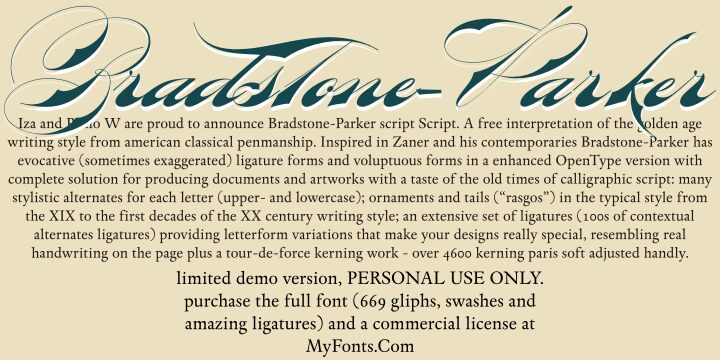
Bradstone-Parker Script by Iza W and Paulo W of Intellecta Design is a free calligraphic script with grand, theatrical movement. Fine hairlines loop far beyond the letters.
Its sweeping flourishes can turn wedding invitations into formal keepsakes, yet the sharp thick-to-thin strokes also suit fashion branding and perfume packaging. For book covers, the lettering brings the drama of engraved penmanship. The recurring curls and long entry strokes can echo ribbons, ornamental borders, or decorative filigree in those settings.
Bradstone-Parker Script is a calligraphic script font with an enhanced OpenType version that includes:
- Stylistic alternates for uppercase and lowercase letters, accessed through the glyph palette.
- Ornaments and tails (“rasgos”), accessed through the glyph palette using the Ornaments feature.
- Hundreds of contextual alternate ligatures that provide letterform variations.
- More than 4,600 manually adjusted kerning pairs.
In applications without OpenType support, it functions as a script font. The font contains almost 700 glyphs, including alternate letters and combinations. InDesign, Illustrator, QuarkXPress, and similar software provide access to its OpenType features through the glyph palette, including Contextual Alternates.
The original letters were designed by Iza W. Paulo W provided the overall creative direction and core programming. Both are associated with Intellecta Design.